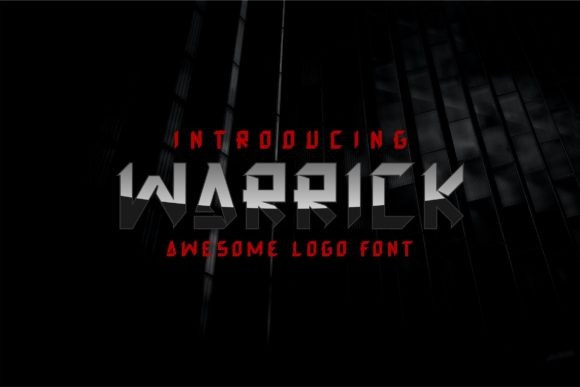
Warrick Font
Warrick is a cool, bold and robotic display font. This font is ideal for writing web designs, business cards, or pretty much anything else that requires a unique touch.